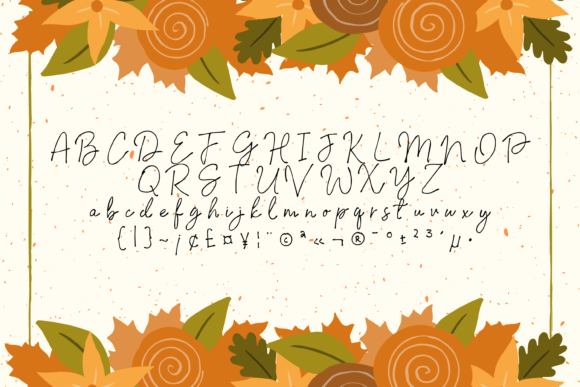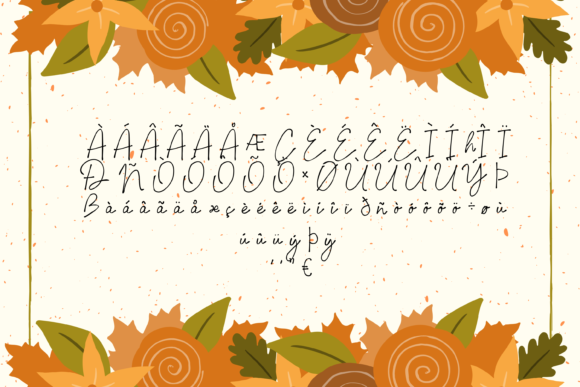
Introduction to Signature Letter Font
Signature Letter is a delicate and natural handwritten font, featuring thin characters.
Incredibly versatile, this font fits a wide pool of designs, elevating them to the highest levels .
Key Features of Signature Letter Font